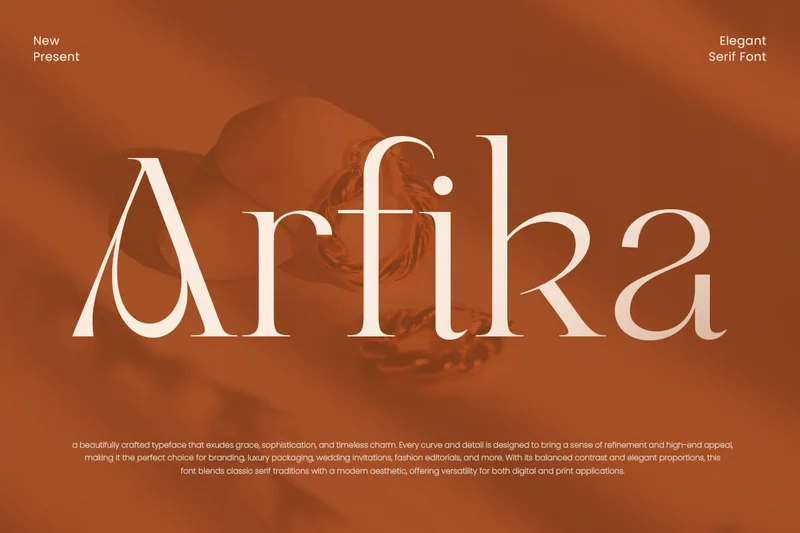
Arfika – Unique Serif Modern Logo Font
Arfika is an elegant serif lavish luxury font crafted for high-end branding, logos, and exclusive creative projects. Its refined, stylish letterforms provide a polished, professional, and luxurious appearance for premium designs.
Ideal for fashion, lifestyle, editorial, and luxury branding, Arfika combines readability with sophistication, making it perfect for print and digital applications where elegance is a must.
Arfika – Elegant Serif Lavish Luxury Font Features
Elegant and lavish serif character set
Perfect for premium branding, logos, and luxury designs
Uppercase, lowercase, numerals, and punctuation included
OpenType features for extra versatility
Enhance your high-end projects with Arfika – the ultimate elegant serif lavish luxury font for sophisticated branding. ✨